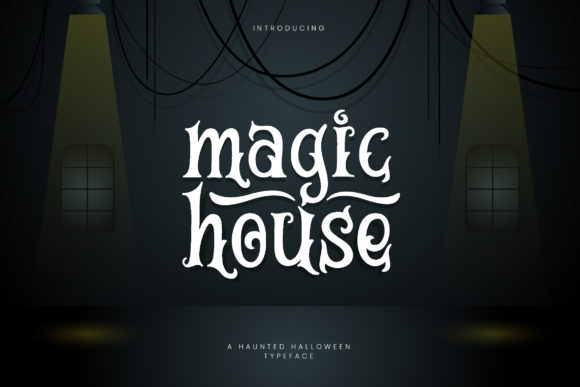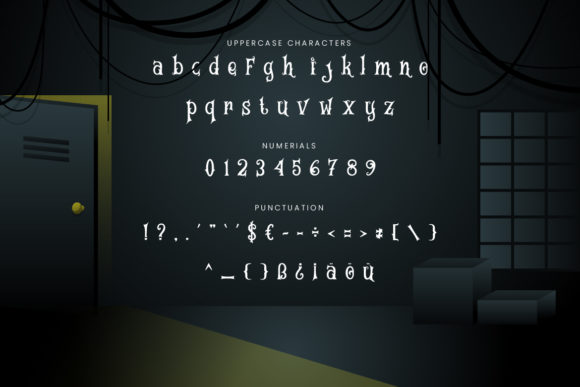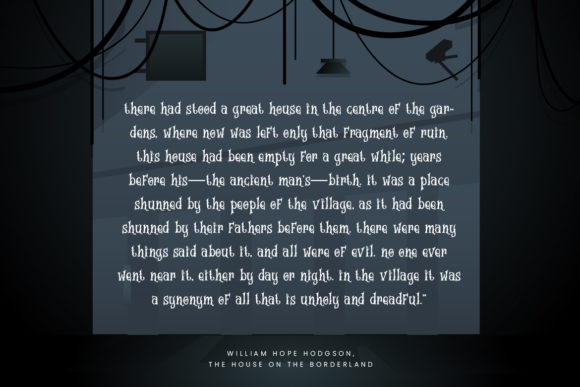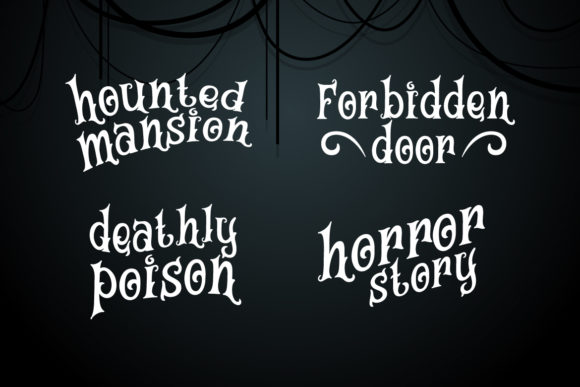
Magic House Font: Spooky Display Font for Halloween Crafts & Cricut
About the Magic House Font
Welcome to the world of Magic House Font, a typeface that will inspire your next great project. Magic House is an assertive and unique display font. Add this spooky font to your Halloween themed ideas and notice how it will make them stand out!
Magic House excels as a display font for headlines, posters, and branding projects requiring a bold, attention-grabbing presence. Its unique character makes it ideal for Halloween themes, but also works well for projects with a gothic or fantasy aesthetic. Avoid using it for body text or long paragraphs; its highly stylized forms are not legible at smaller sizes.
For a balanced pairing, consider a clean sans-serif like Open Sans for body copy, or a more geometric sans-serif for a modern contrast. A classic serif such as Garamond would provide elegant counterpoint, while a script font like Pacifico could add a touch of playful whimsy depending on the desired overall mood.
The font’s core personality is assertive and dramatic, projecting a sense of mystery and intrigue. It is best suited for brands or projects aiming for a strong visual impact and a slightly spooky or unconventional feel.
Magic House Font Usage Examples
Magic House Font Example